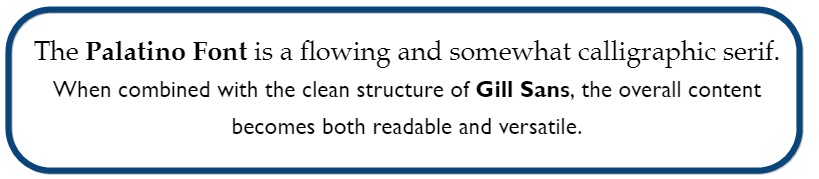
Fonts are the unsung heroes of design, subtly influencing how we interact with content. While fonts abound in variety, they often fall into one of two categories: serif and sans serif. Understanding the difference between these two types can impact your text's readability, tone, and effectiveness.
What Is the Difference Between Serif and Sans Serif?
Serif fonts have small decorative strokes (or "tails") at the ends of their letters, while sans serif fonts lack these strokes. "Sans" in French means "without," so "sans serif" literally means "without serifs."
Appearance & Characteristics
While the primary distinction boils down to the presence or absence of serifs, other nuances in their designs influence how they're perceived and used:
Weight and Structure
- Serif: These fonts often have a varied stroke width with a noticeable difference between thick and thin strokes. The serifs themselves can differ greatly, ranging from blocky slab serifs to more delicate and refined ones.
- Sans Serif: Typically characterized by uniform stroke widths throughout, which provides a more modern and clean look.
Readability and Legibility
- Serif: The small decorative strokes in serif fonts can guide a reader's eyes along the lines of text. They're traditionally thought to improve readability in long passages, making them a favorite for printed books and newspapers.
- Sans Serif: On screens, especially at smaller sizes or lower resolutions, sans serif fonts tend to be more legible. The simplicity of their design ensures characters and letters don't become muddled.
Tone and Feel
- Serif: Oftentimes, serif fonts can give off a more traditional, formal, or established feel. They might convey trustworthiness or authority.
- Sans Serif: These fonts often feel more modern, clean, and approachable. They're commonly used by tech companies or in more contemporary design settings.
Usage in Different Media
- Serif: Given their readability in longer passages, serif fonts are prevalent in print media such as books, newspapers, and academic journals.
- Sans Serif: With their high legibility on screens, sans serif fonts dominate web content, user interfaces, and digital media.
Adaptability
- Serif: While versatile, serif fonts can sometimes appear cluttered at small sizes or on digital displays, especially if the display isn't of high quality.
- Sans Serif: Due to their streamlined design, sans serif fonts often scale more effectively. They remain clear and legible across a variety of sizes and resolutions.
Mixing Serif and Sans Serif Fonts
Yes, you can mix serif and sans serif fonts! In fact, font pairing - combining serif and sans serif fonts - can create a dynamic and visually appealing contrast in your design. Pairing them correctly can accentuate the strengths of each and bring a harmonious balance to your content.
When to Use & Pairing Tips
Hierarchy
Understanding the hierarchy of text can greatly aid in making a readable and eye-catching document. Typically, larger and bolder fonts are used for titles and subheadings, while smaller, lighter fonts are reserved for body text.
See the example below of the pairing between Georgia (serif) and Helvetica (sans serif) fonts:
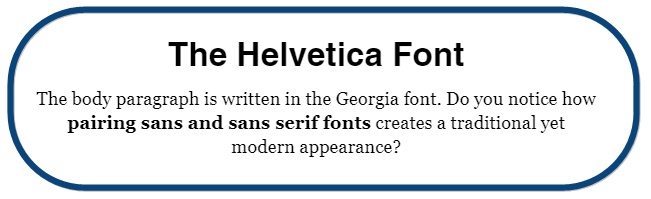
Consistency
Consistency in your font choices helps create a cohesive, professional look throughout your document or project. A disjointed or erratic set of fonts can distract from the message you're trying to convey.
Tip: Once you've selected a pairing scheme, such as sans serif for headers and serif for body text, be consistent in applying this scheme throughout the entire document or series of documents.
Contrast
Contrast is key for making your text stand out and for keeping the reader's attention. Fonts that are too similar can blend into one another, making your text harder to read.
Tip: Ensure the fonts you pick are distinguishable but not so different that they clash. If one font is ornate and decorative, the other should be more understated to allow each moment in the spotlight.
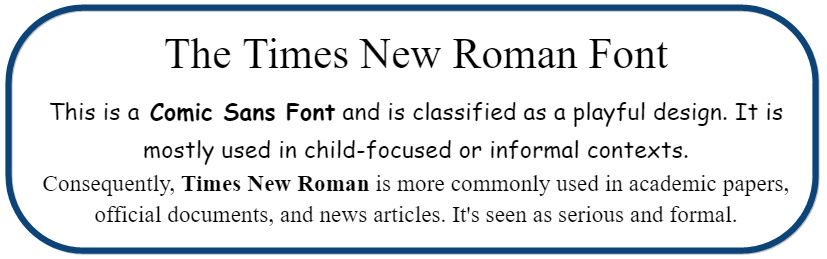
Look at the example above. The pairing of Times New Roman font and Comic Sans creates a discordant feel, as they are associated with entirely different moods and settings. A combination like this would likely appear unprofessional and confusing, detracting from the text's readability and overall impact.
Examples of Font Pairings
Now let’s discover some classic combinations of Serif and Sans Serif fonts:
- Times New Roman & Arial: The traditional appearance of Times New Roman contrasts nicely with Arial's clean, modern lines.
- Georgia & Helvetica: Georgia has a rounded, comfortable feel ideal for long reads, while Helvetica is straight-to-the-point, making for great headlines.
- Garamond & Futura: Garamond's classic, elegant charm pairs well with the geometric and modern aesthetic of Futura, often resulting in a balanced and harmonious design.